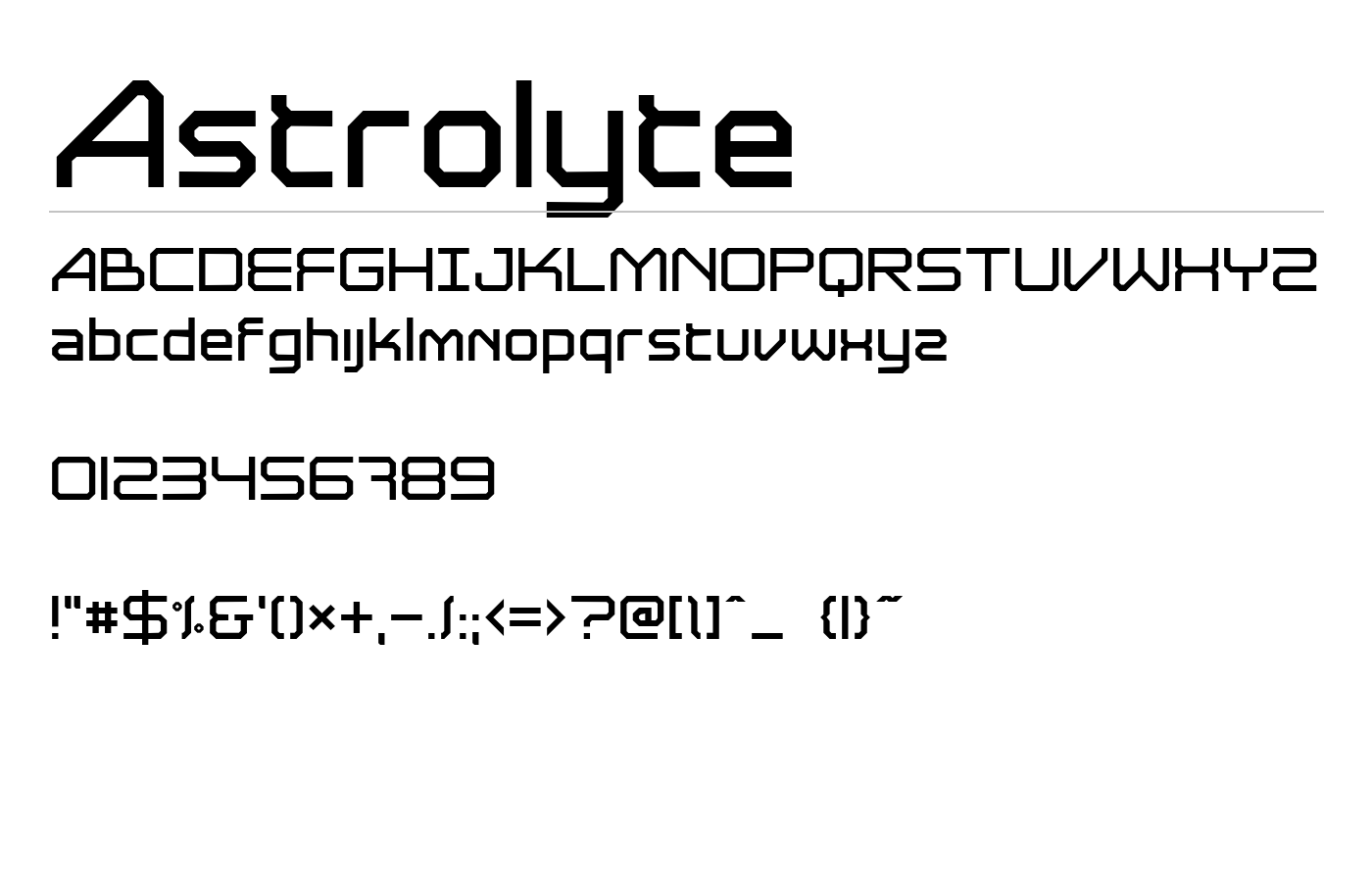
Astrolyte is a futuristic sans serif font with a geometric, angular design that gives it a technological and modern feel. Its medium weight and narrow width combined with clean, sharp edges create a digital, sci-fi vibe perfect for tech branding, headlines, and creative projects aiming for a sleek, contemporary look. This font works well in contexts where a unique, modern personality is desired without sacrificing readability.
Astrolyte Font